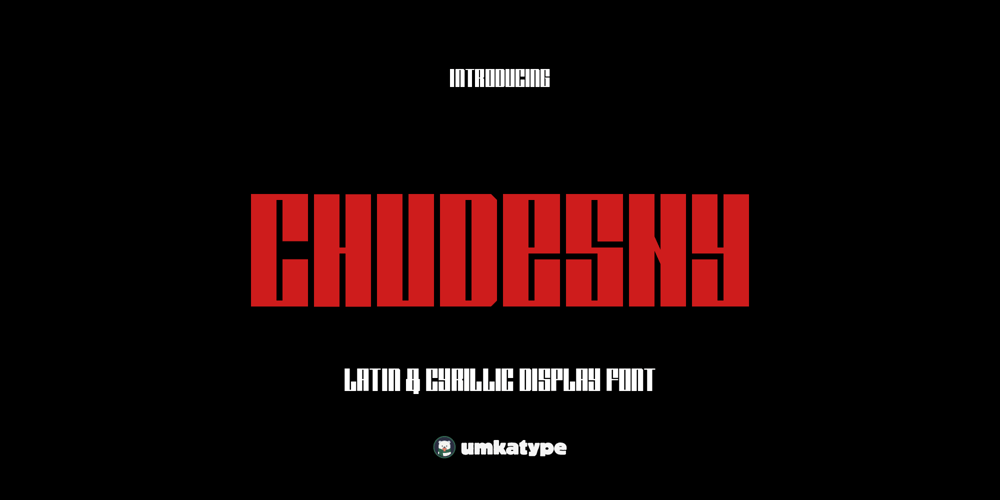
Chudesny Font Family was designed by Alper Çakıcı and published by Umka Type. Chudesny contains 1 styles and family package options. Discover the elegance and versatility of Chudesny, a geometric rectangular font designed to elevate your creative projects. With support for 70 languages, including Cyrillic alphabets, Chudesny breaks barriers and ensures seamless communication across diverse audiences. Its clean lines and modern aesthetic make it a perfect choice for branding, editorial design, web content, and more. Whether you’re crafting a sleek corporate identity or adding a touch of sophistication to your digital creations, Chudesny delivers a harmonious blend of style and functionality. Explore the limitless possibilities of multilingual typography with Chudesny and make every word a work of art!